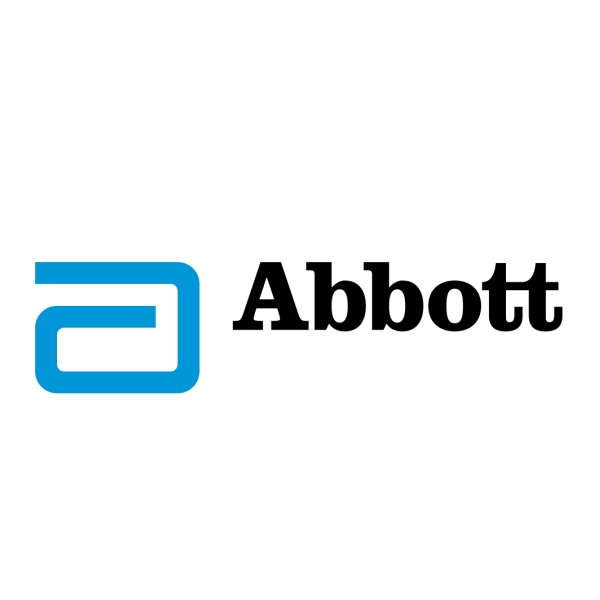
Abbott Font
Fonts in UseAbbott Laboratories is a global healthcare company that develops and markets pharmaceuticals, medical devices, and nutritional products. It was founded by Chicago physician Wallace Calvin Abbott in 1888.